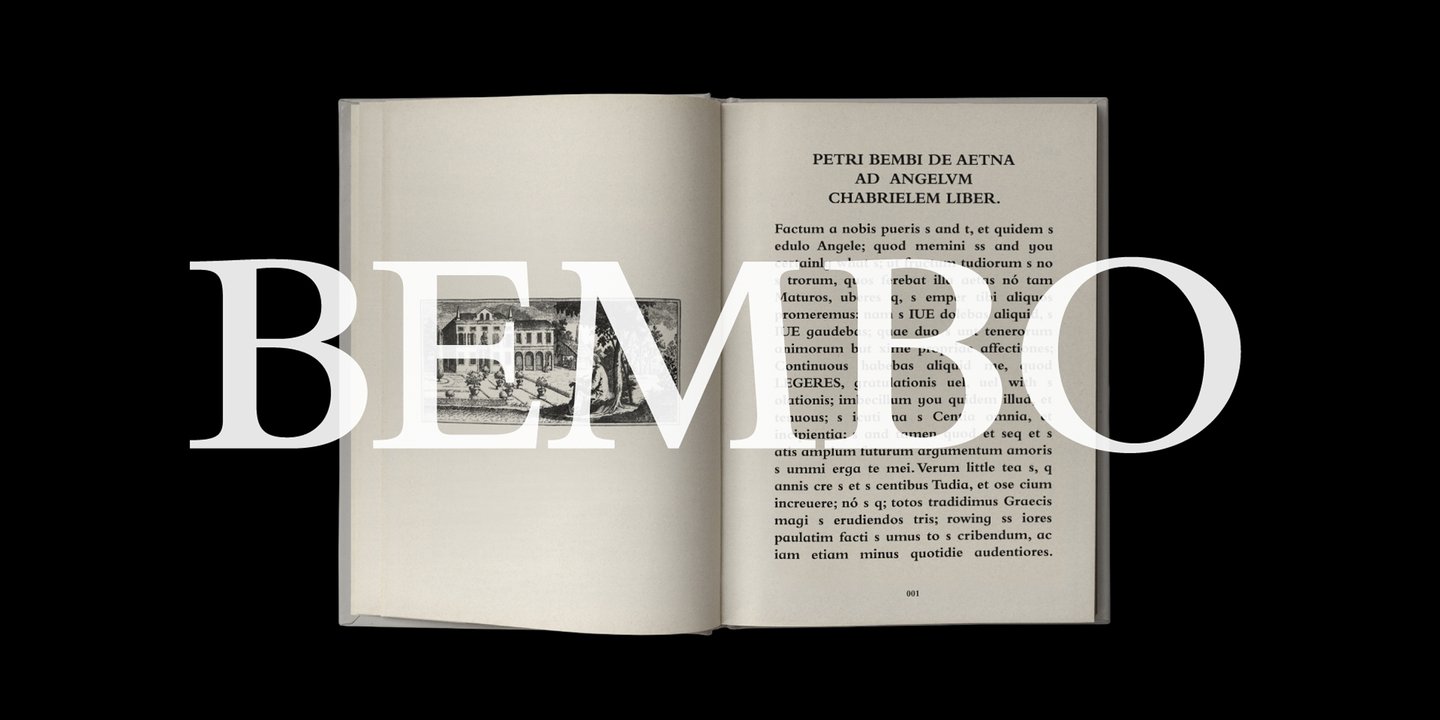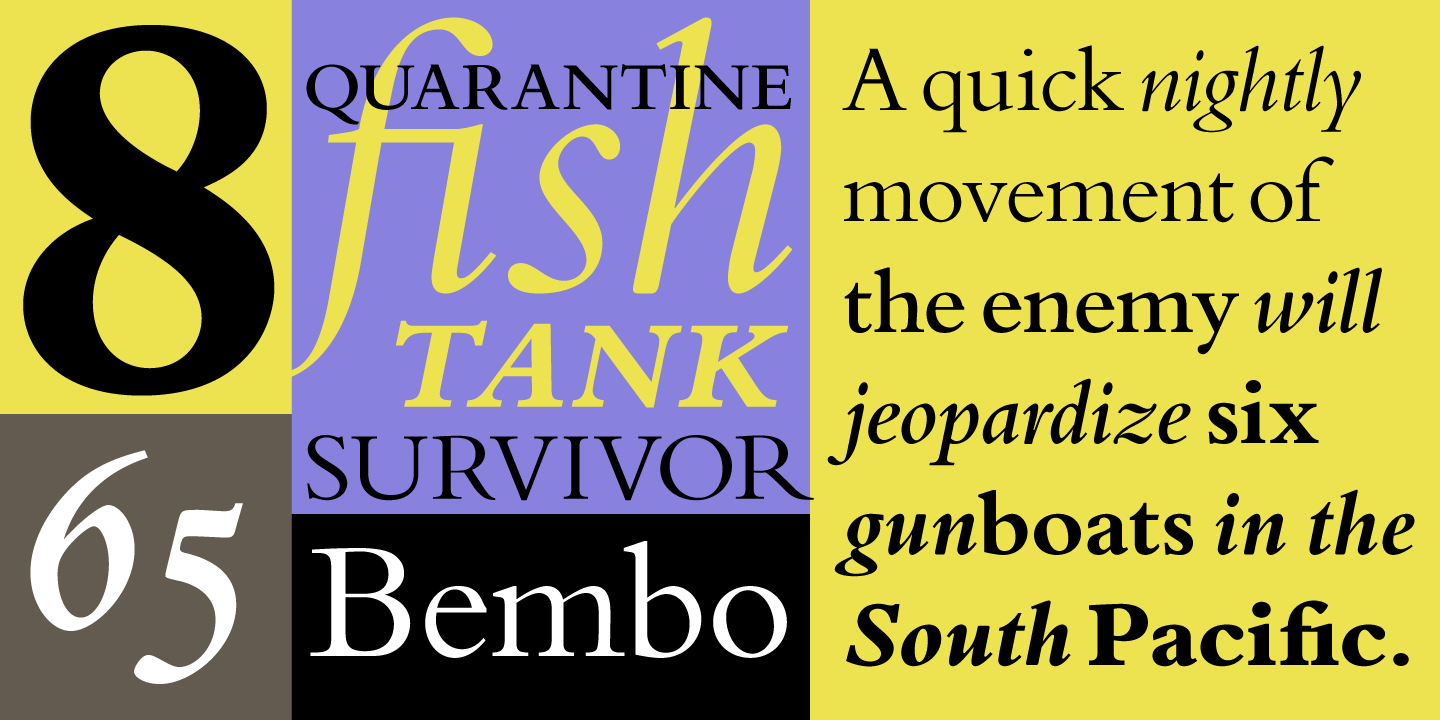
Aldus Manutius
Venetian scholar, who became a publisher and printer when he founded the Aldine Press in 1495.
He introduced personal or pocket editions of the classics in Latin and Greek that all could own, as well as works by contemporaries Pietro Bembo and Erasmus. His typefaces were all designed and cut by the brilliant Francesco Griffo, a punchcutter who created the first roman type cut from study of classical Roman capitals.
Type designs based on work used by Aldus Manutius include Bembo and Poliphilus.